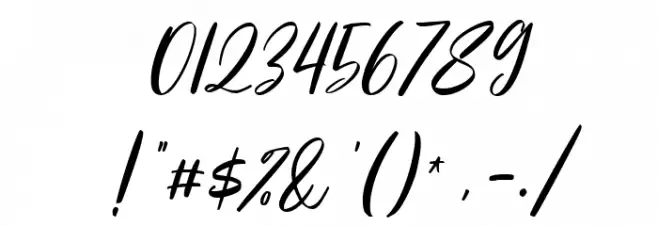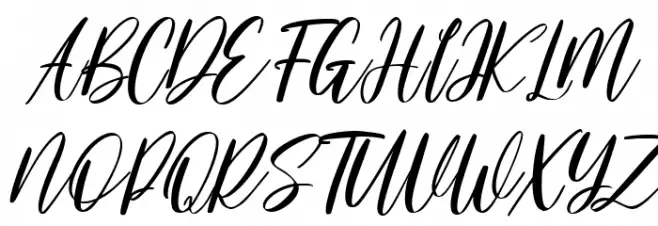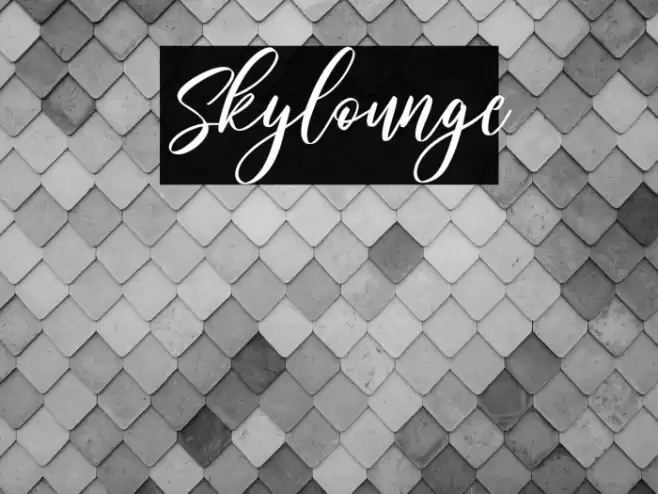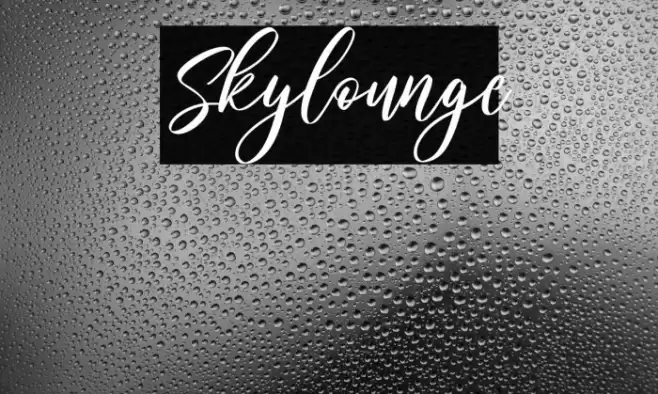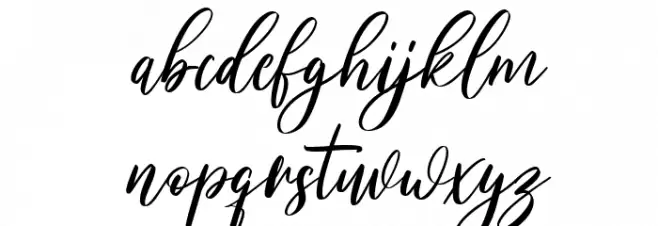
Skylounge Font
Skylounge Description
Elegant, cursive script font with flowing, handwritten style, characterized by high contrast and fine, elongated strokes.
| Overall Style | Elegant, Modern, Handwritten |
| Use Case | Invitations, branding, logos, packaging |